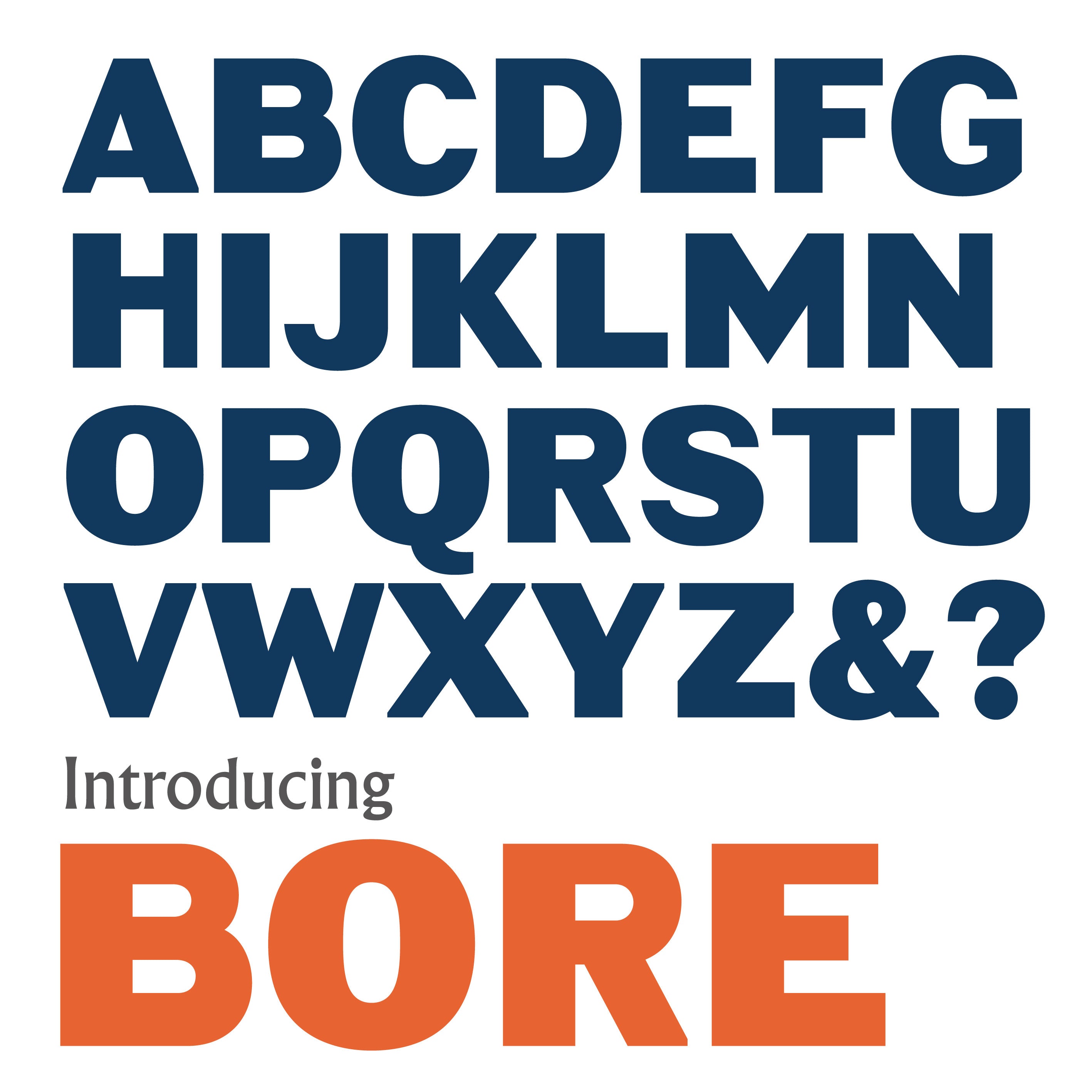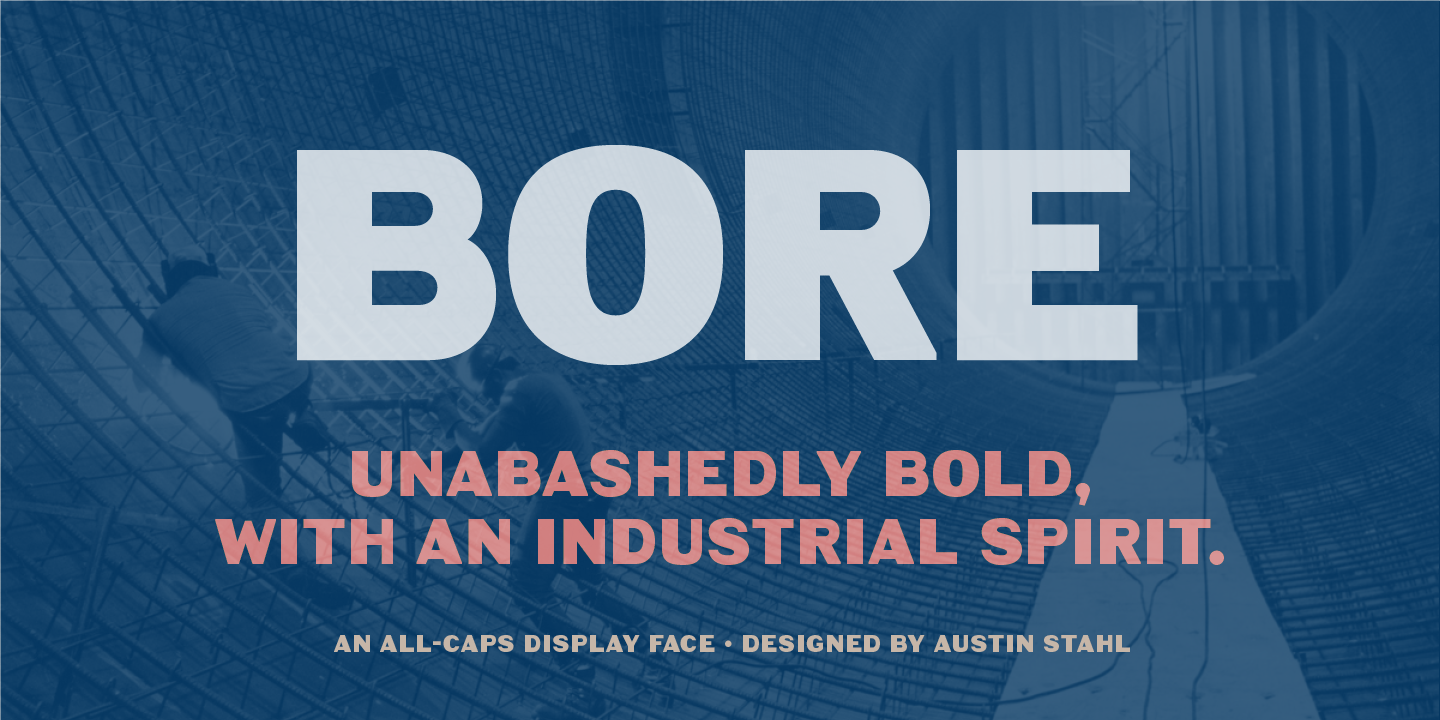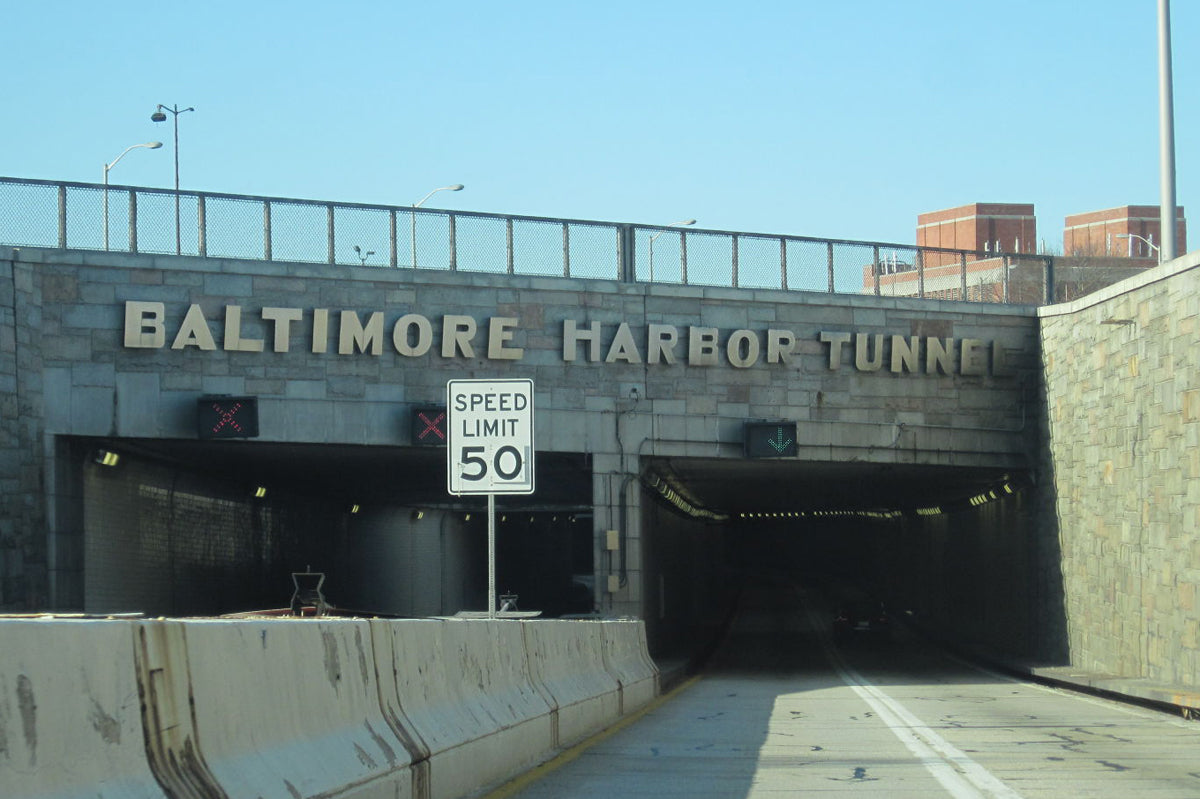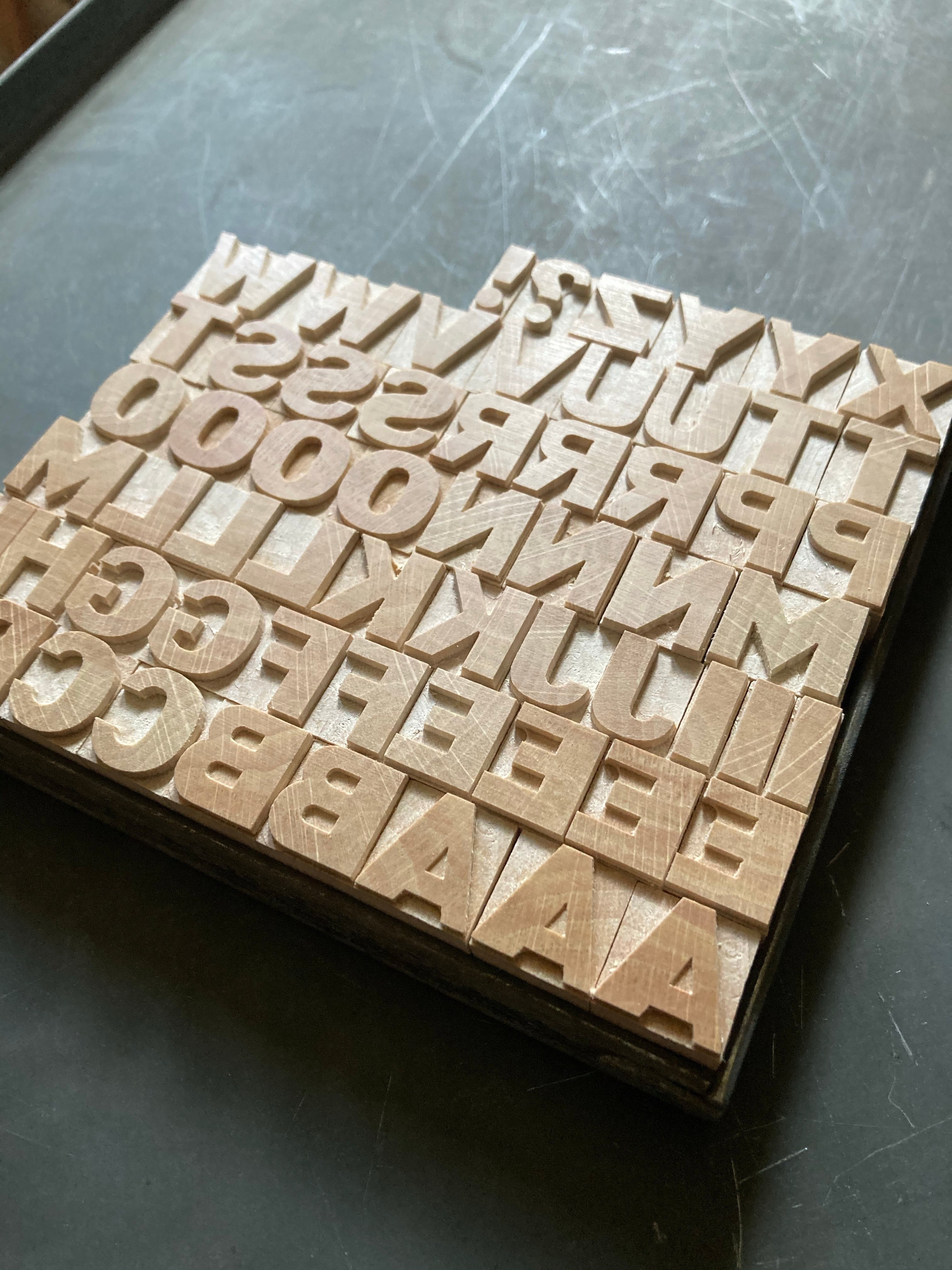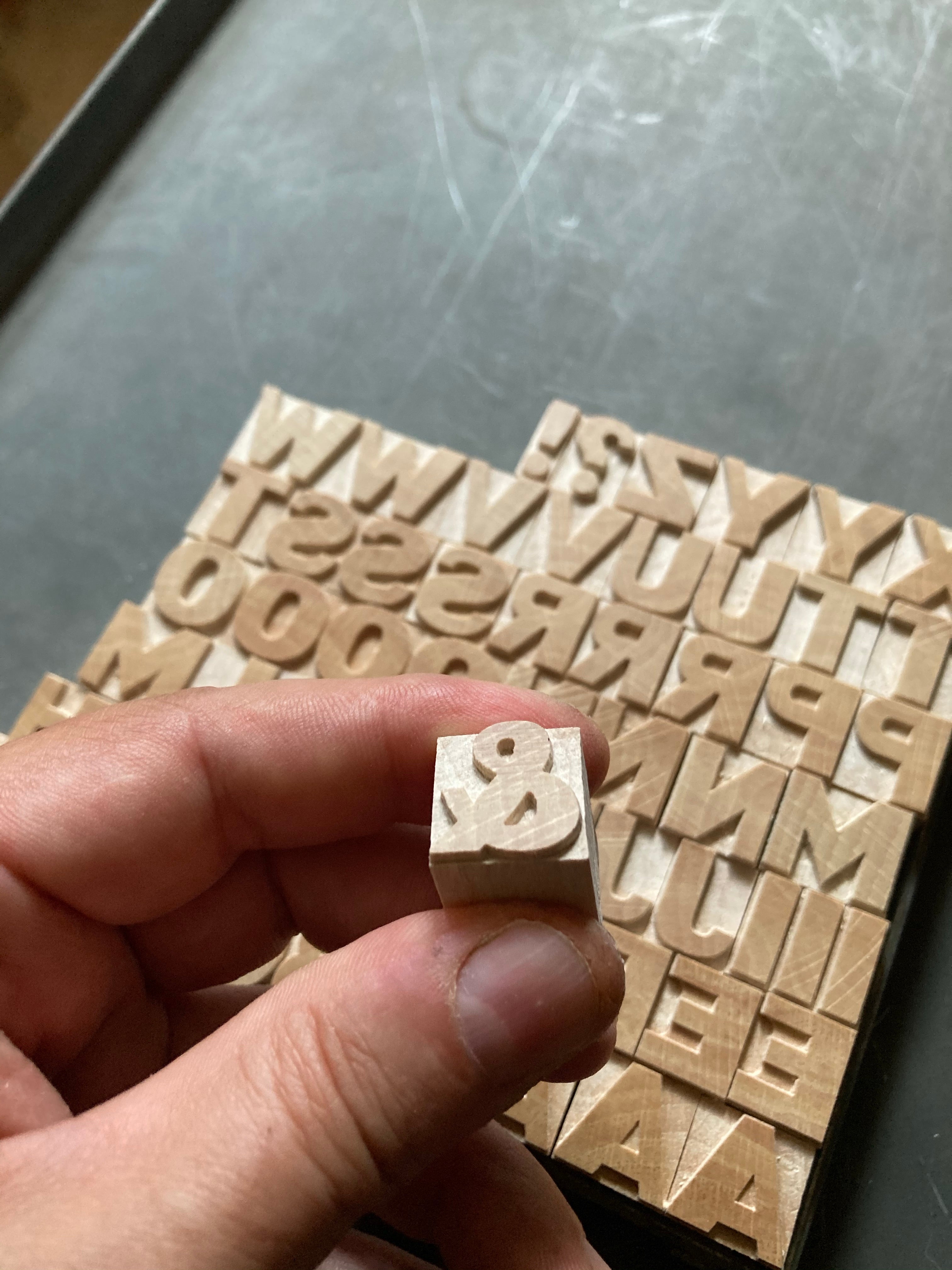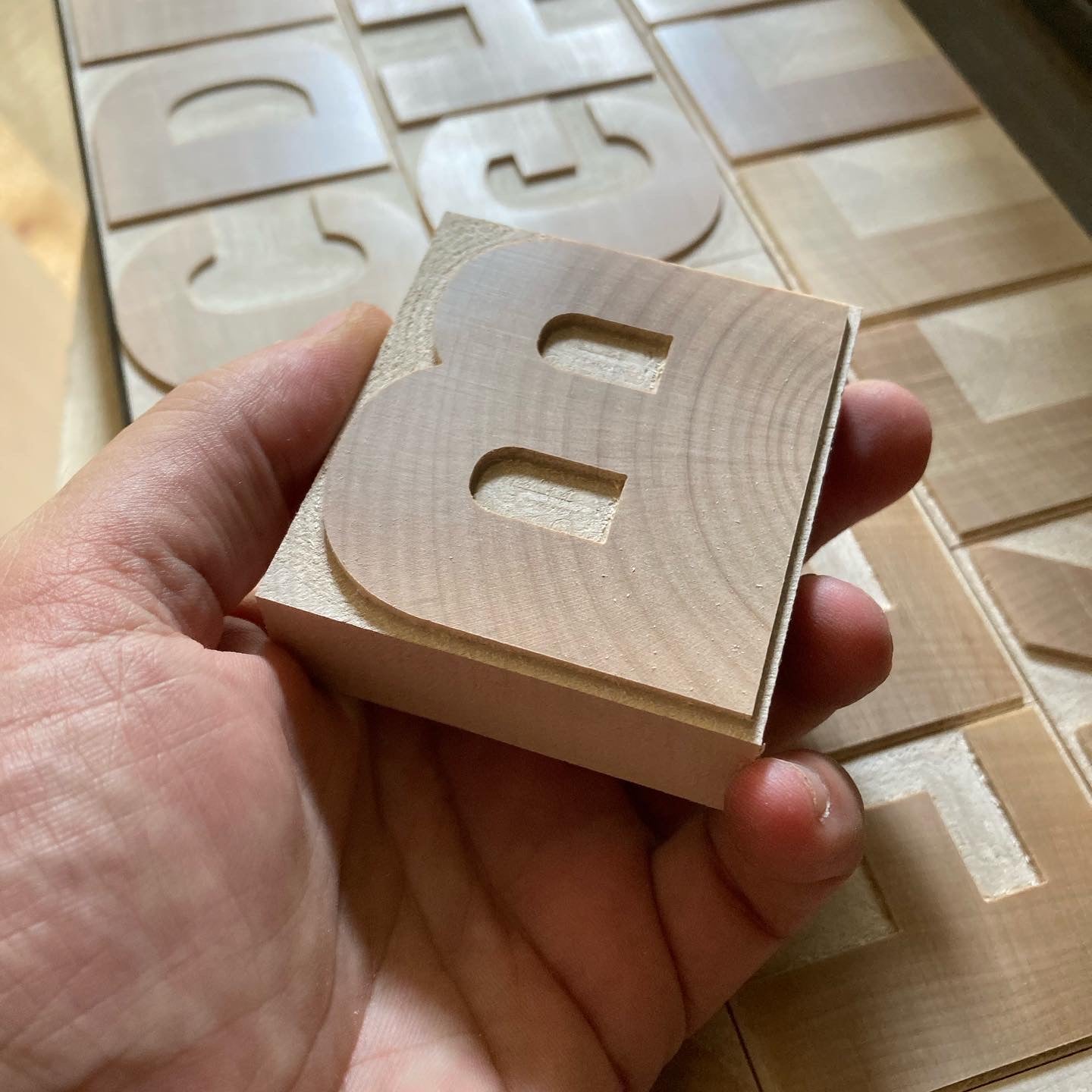
‘Bore’ Letterpress woodtype typeface
Newly cut letterpress typeface designed by Austin Stahl and based on the signage found at the Baltimore Harbour Tunnel.
Available in sizes 4 line (16.9mm), 8 line (33.8mm) and 16 line (67.7mm) cut in English hardwood using a combination of modern CNC technology and traditional hand woodworking tools (including an original printers saw), made to English type-high (0.918in or 23.3mm) within plus or minus 0.1mm tolerance, sealed with shellac and hand finished with a traditional polished printing surface.
English hardwood, clear shellac
Each block varies in width but on average measures 16.9 x 23.3 x 16.9mm for 4 line, 33.8 x 23.3 x 33.8mm for 8 line and 50.8 x 23.3 x 50.8mm for 12 line.